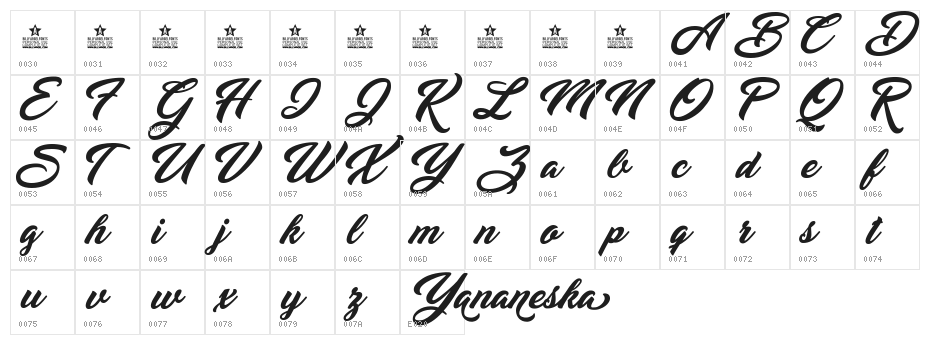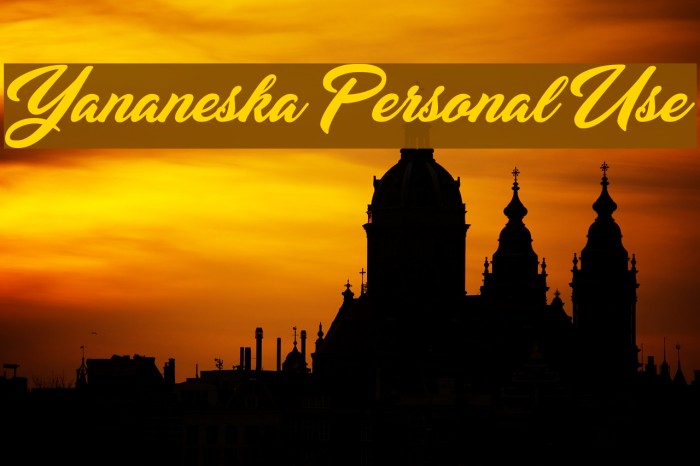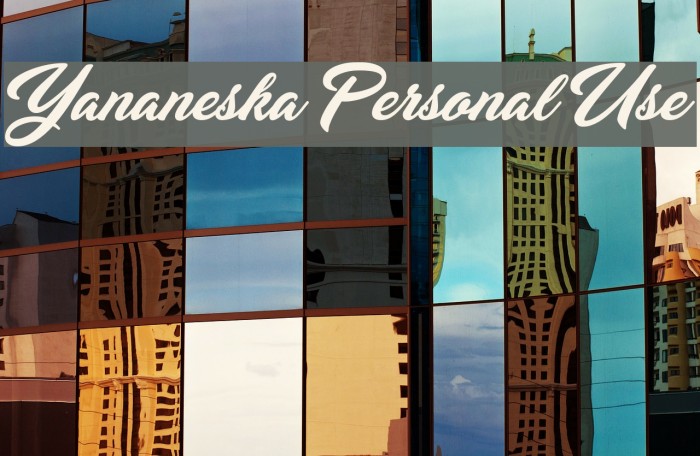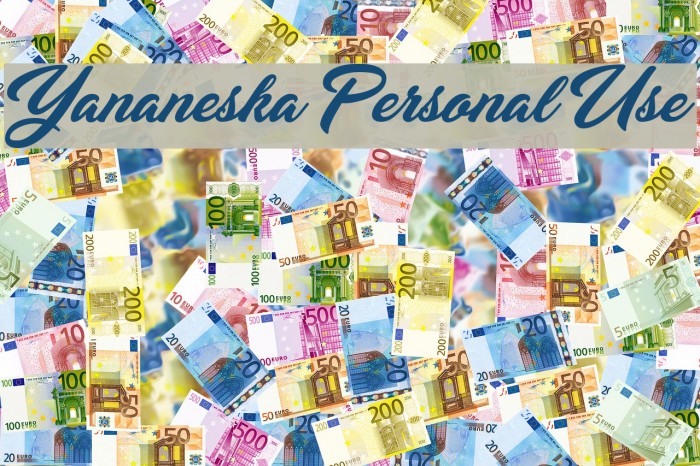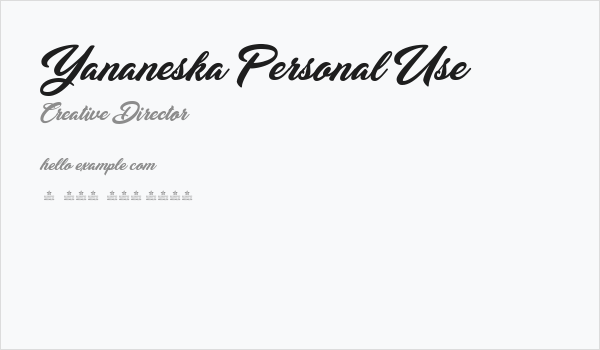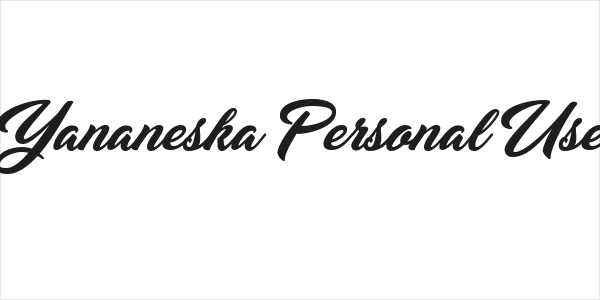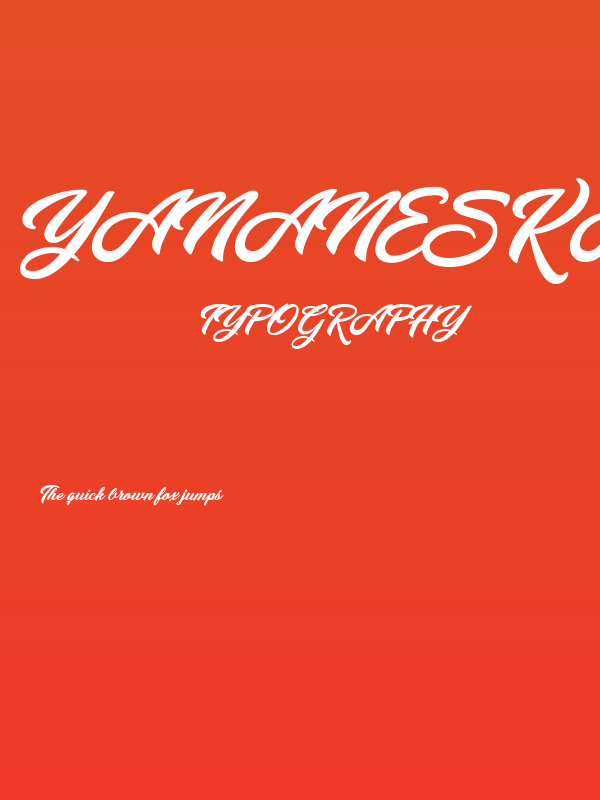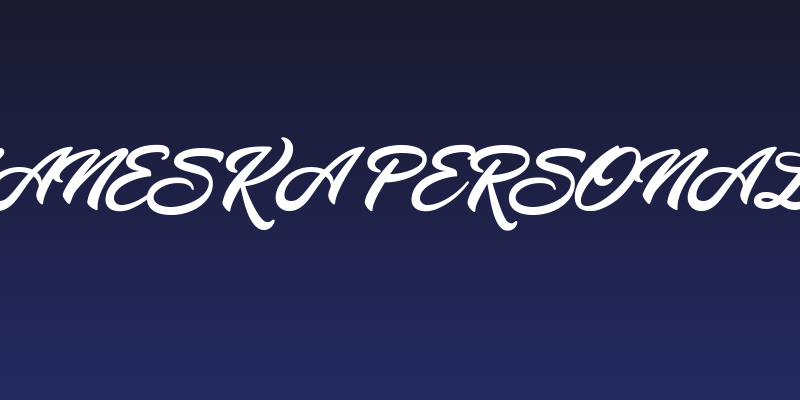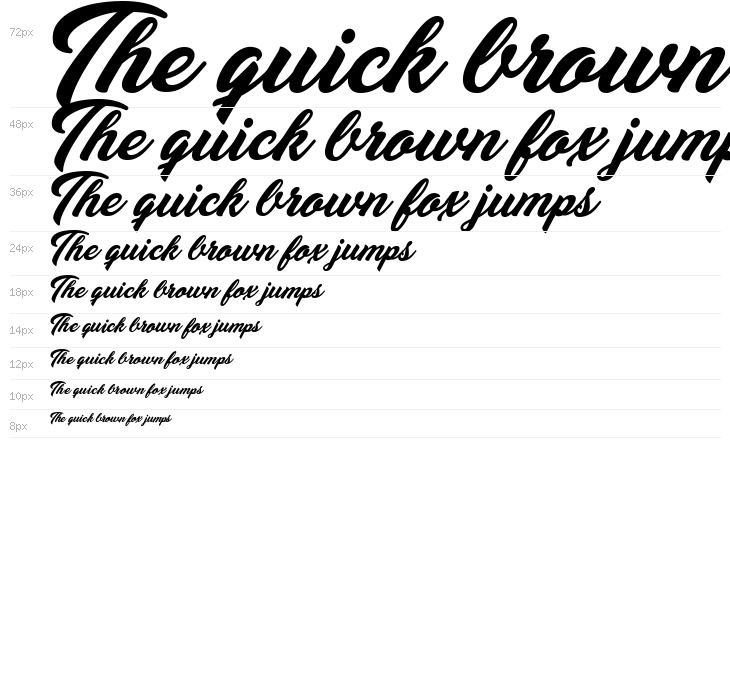
Yananeska Personal Use Font
Yananeska Personal Use Description
This font features a dynamic and flowing script style, characterized by its elegant and cursive letterforms. The uppercase letters exhibit a graceful, sweeping motion with distinctive loops and flourishes, while the lowercase letters maintain a consistent flow, enhancing readability. The font's bold weight adds a sense of strength and presence, making it suitable for impactful designs. The character spacing is relatively tight, contributing to its cohesive appearance. The high contrast between thick and thin strokes further emphasizes its decorative nature, making it ideal for projects that require a touch of sophistication and flair.